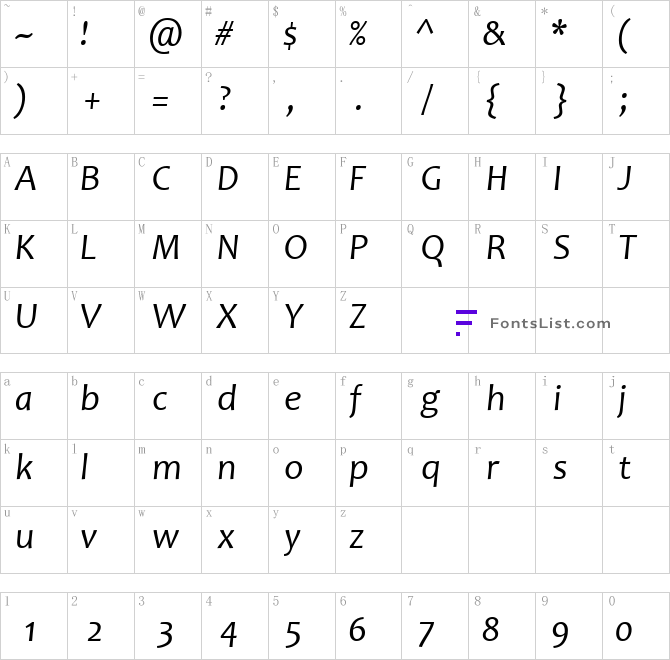
- Font Name:Candara
- Full Name:Candara Italic
Candara-Italic-copy-1-.ttf is a very beautiful artistic font, Candara-Italic-copy-1-.ttf is widely used in the design and printing of various books and pictures,Candara-Italic-copy-1-.ttf has a strong visual impact,Candara-Italic-copy-1-.ttf is a commonly used font in newspapers, magazines and books, and is used in posters, e-commerce Poster design, store design, logo design, font design and other fields.Candara-Italic-copy-1-.